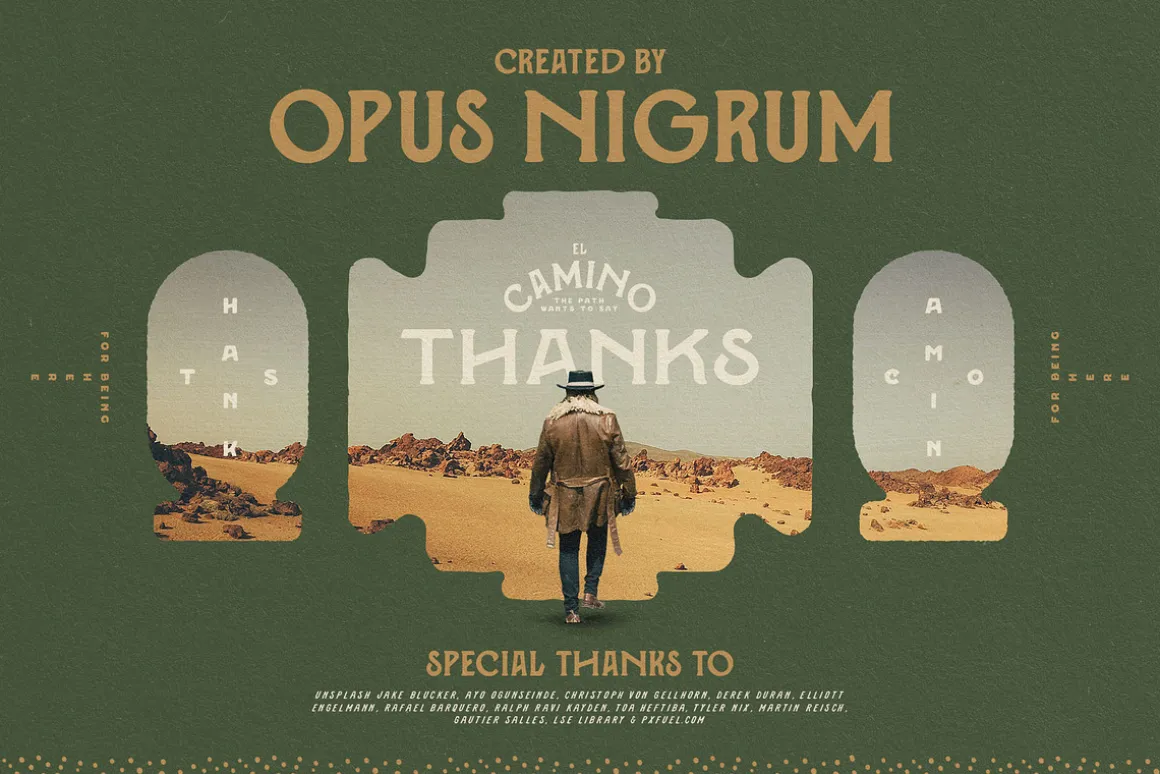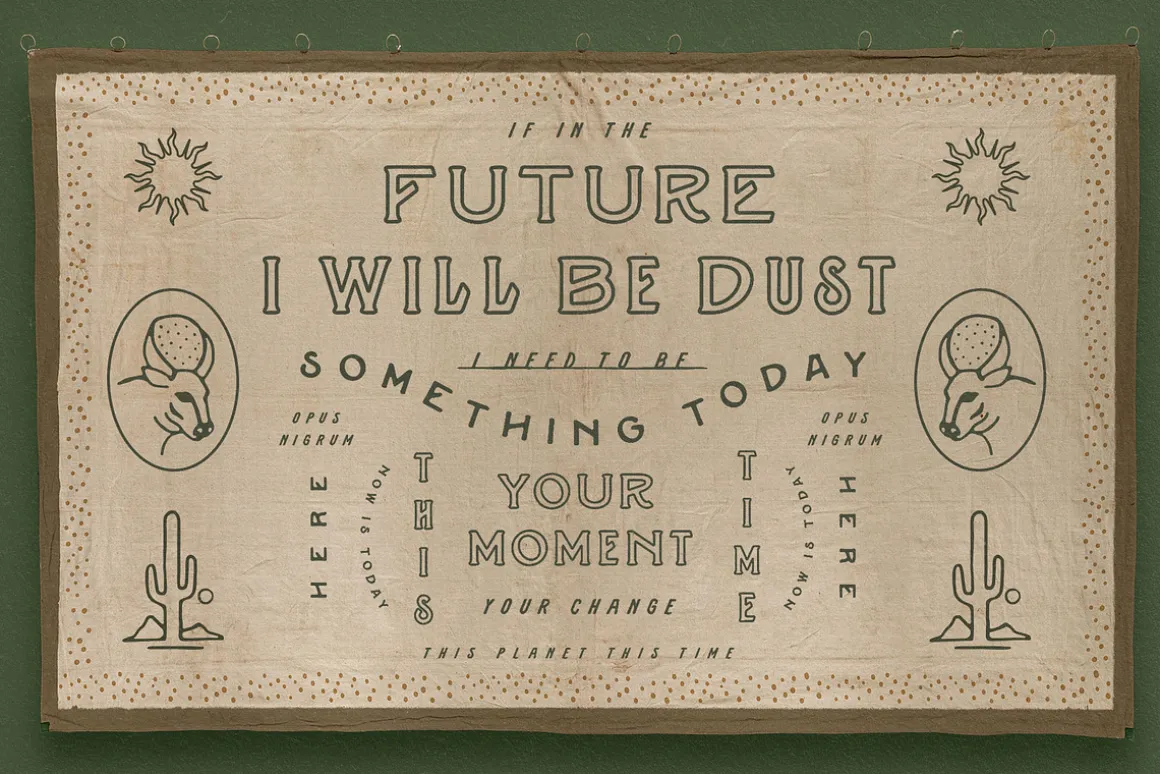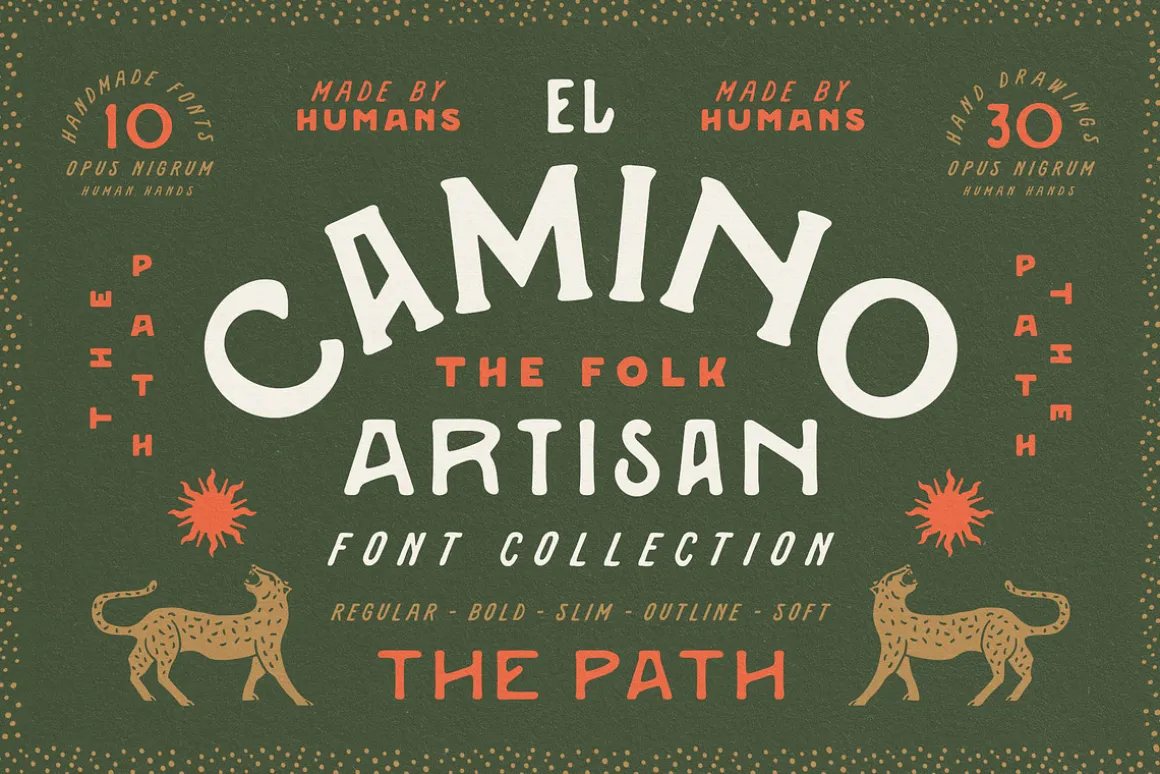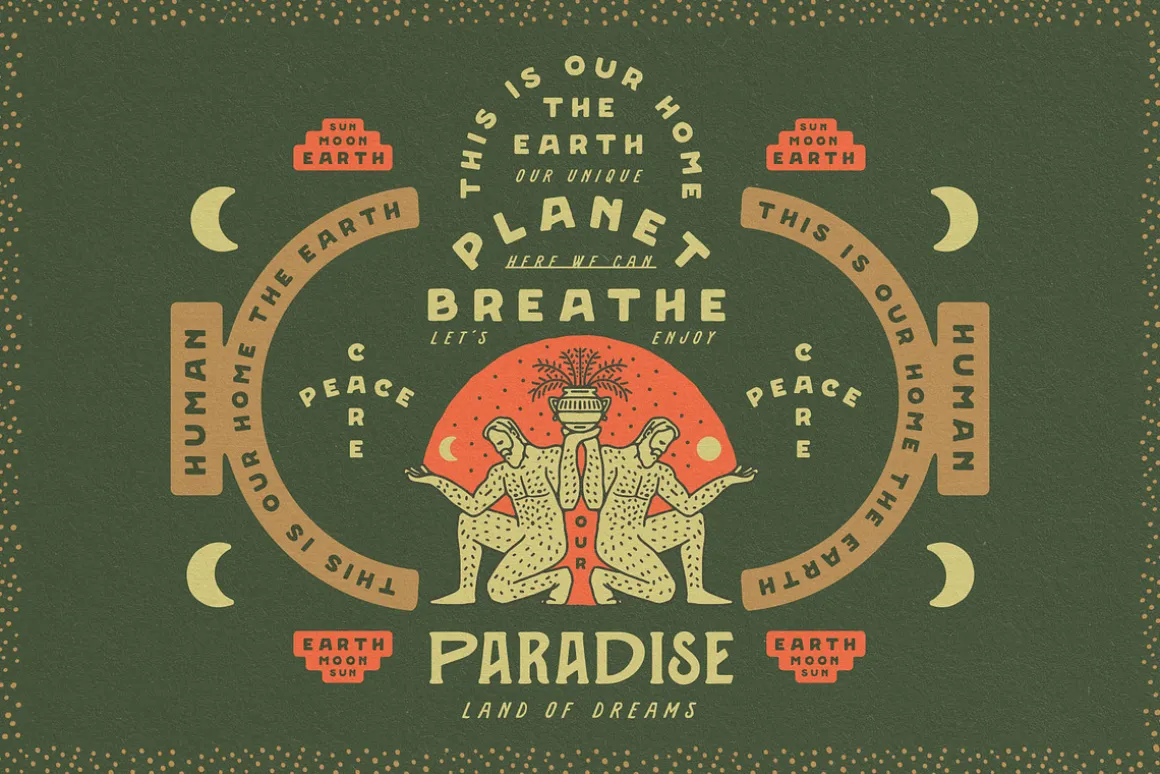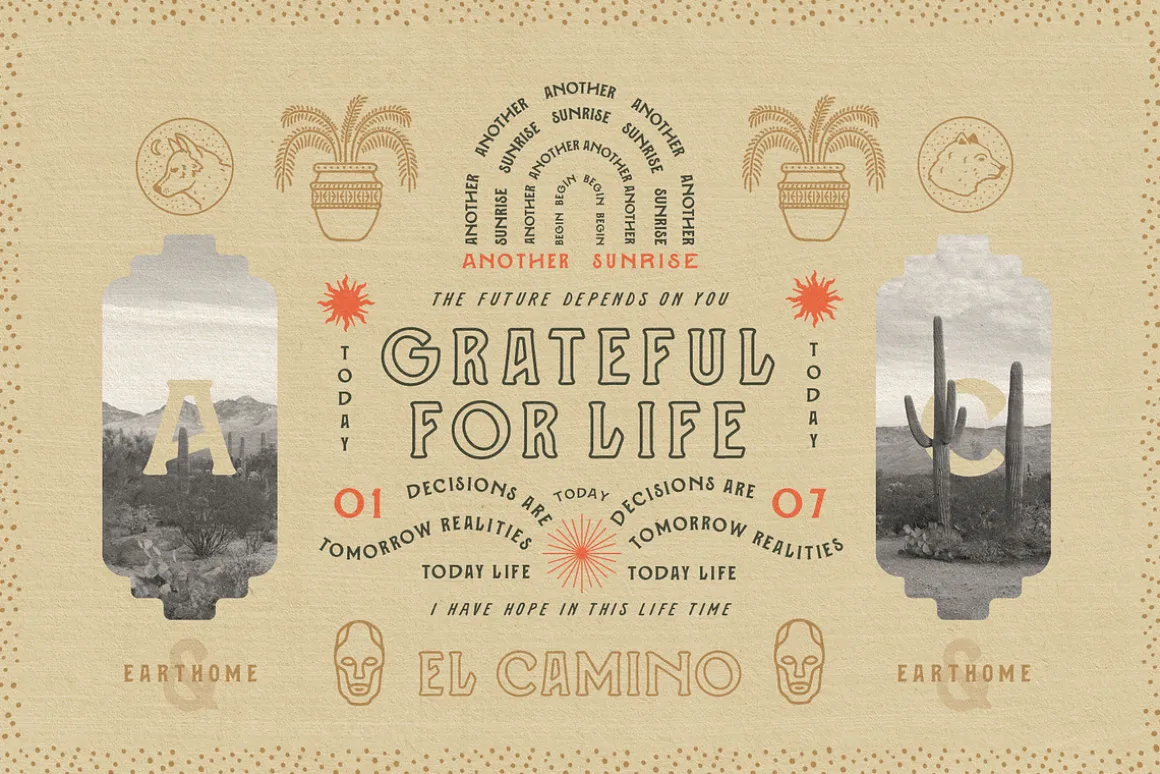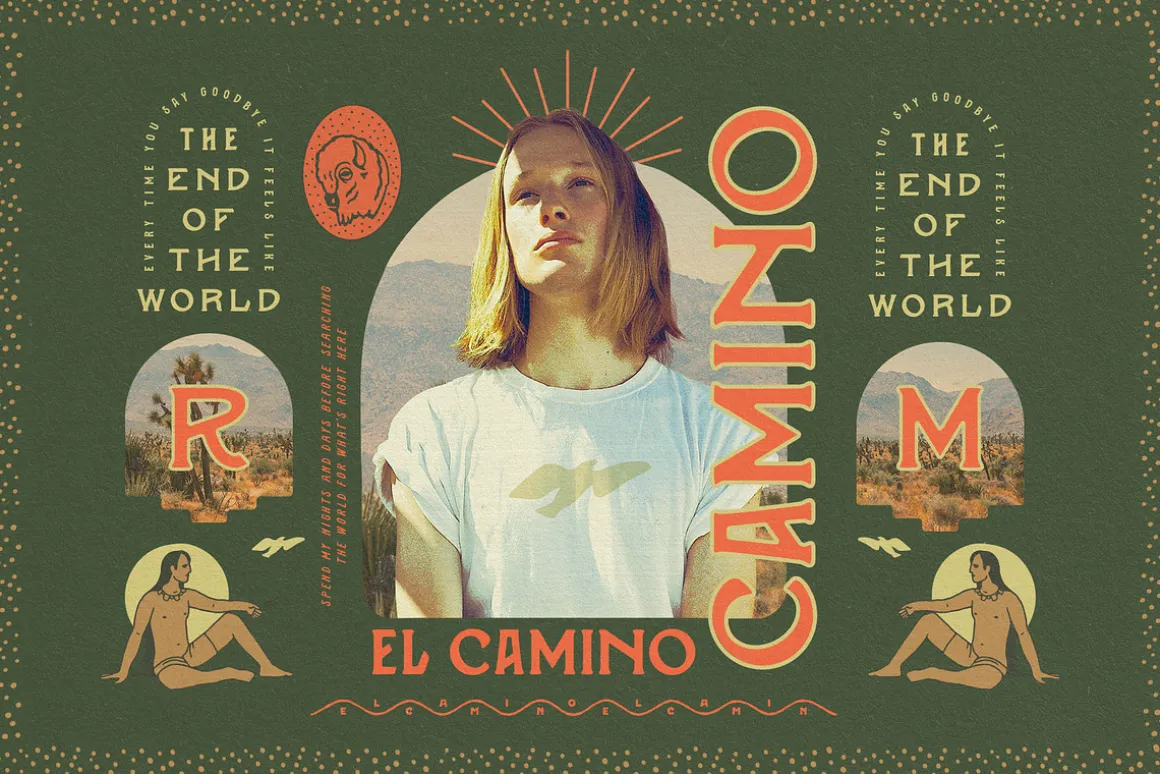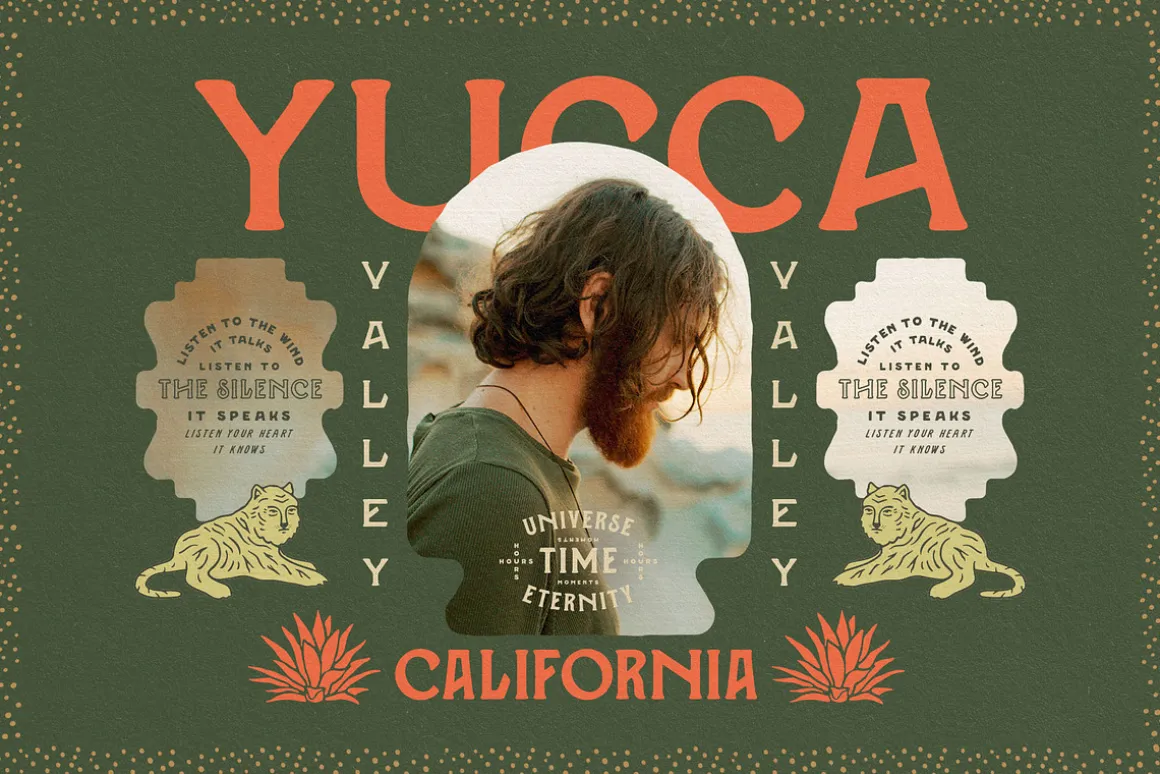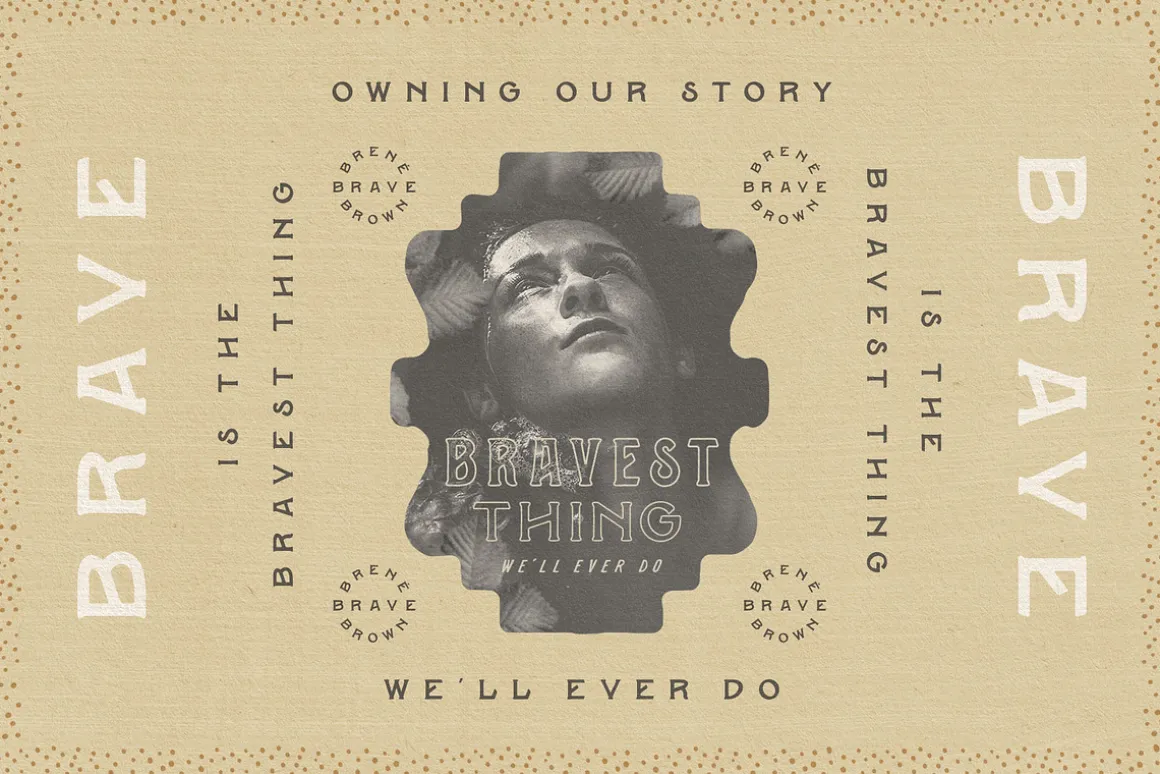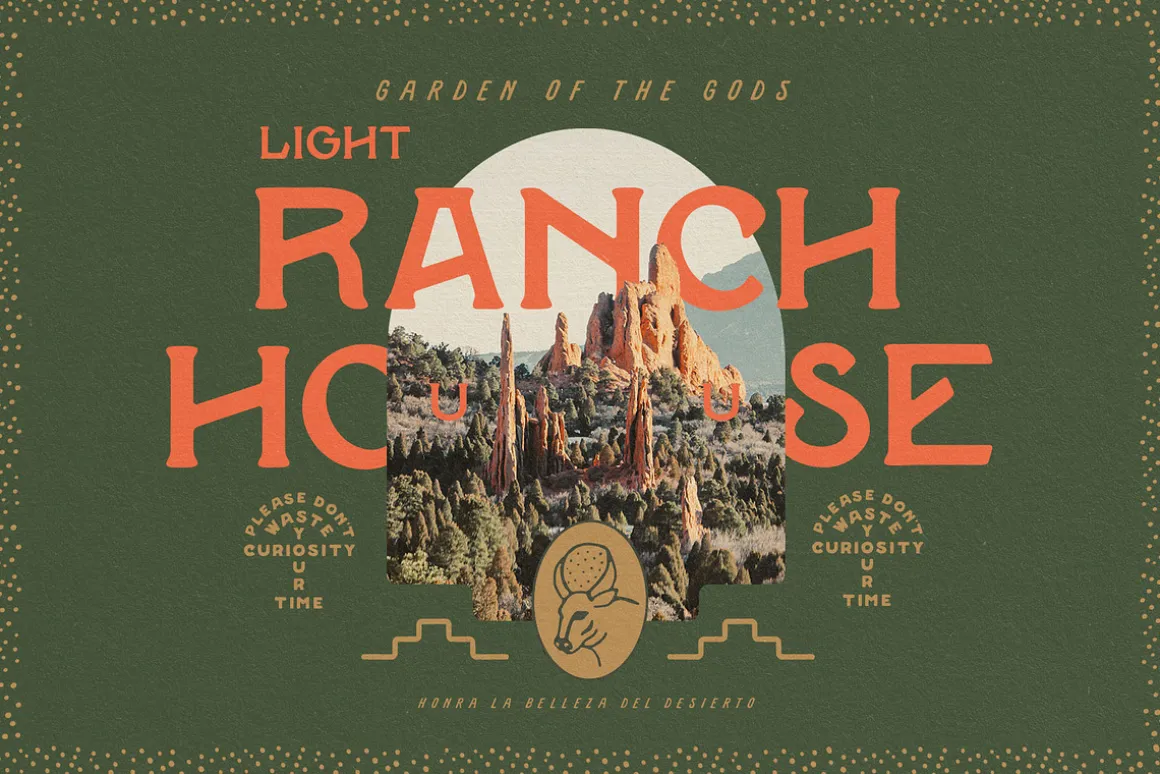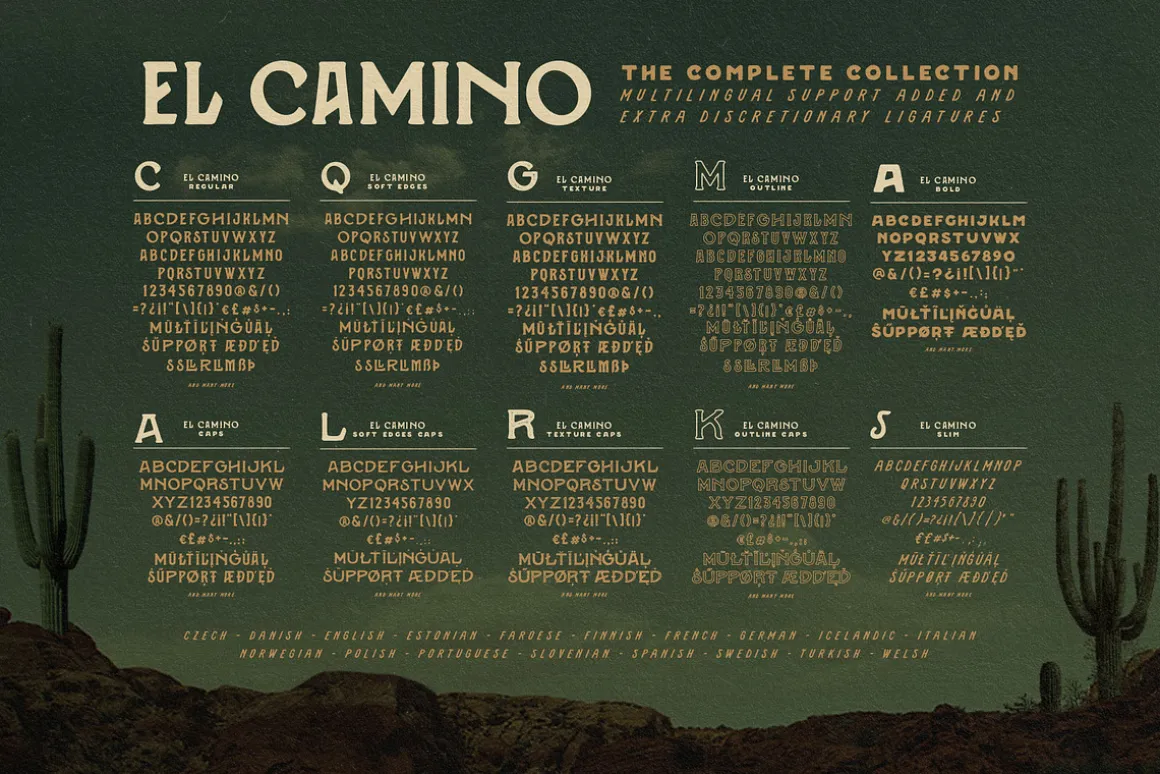
EL CAMINO means “The Path”. This collection was born inspired by the old west, the desolate places, the desertof California and Mexico. With the flavour of the whiskey or the Mezcal. “El Camino” represents the journey of each one in life, introspection and learning.
This handmade font is wonderful to use in logos, designs, labels, clothes or anything you want.Play with all the variations and discretional ligatures. Use the uppercase for a different look, or change with the caps, soft, texture or outline versions. Combine perfect with El Camino Slim and Bold.Enjoy!